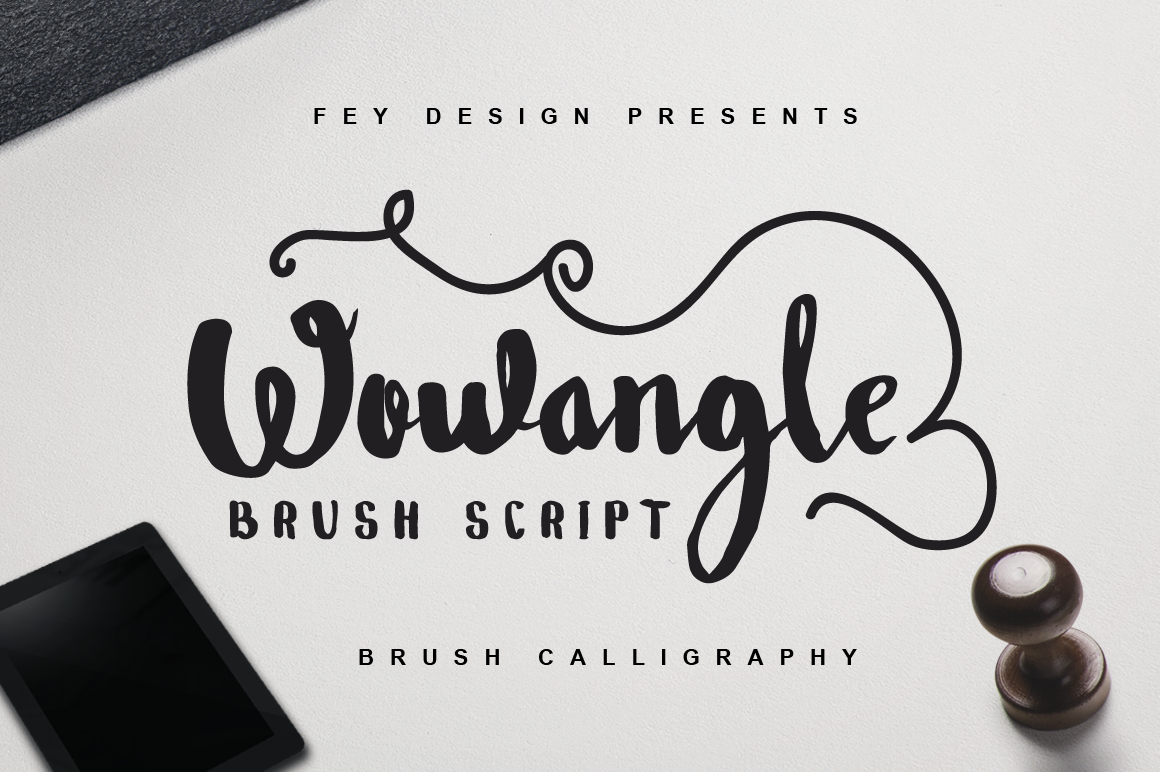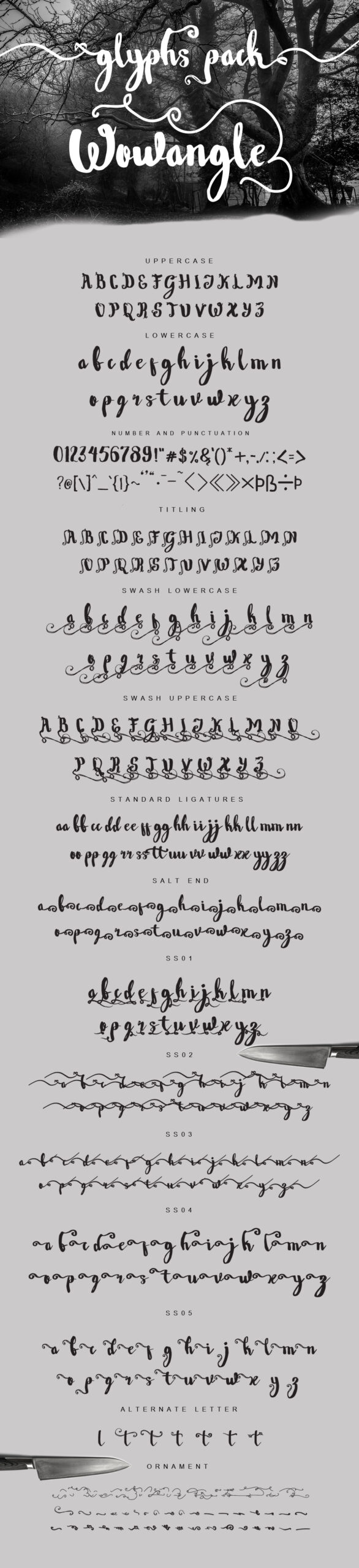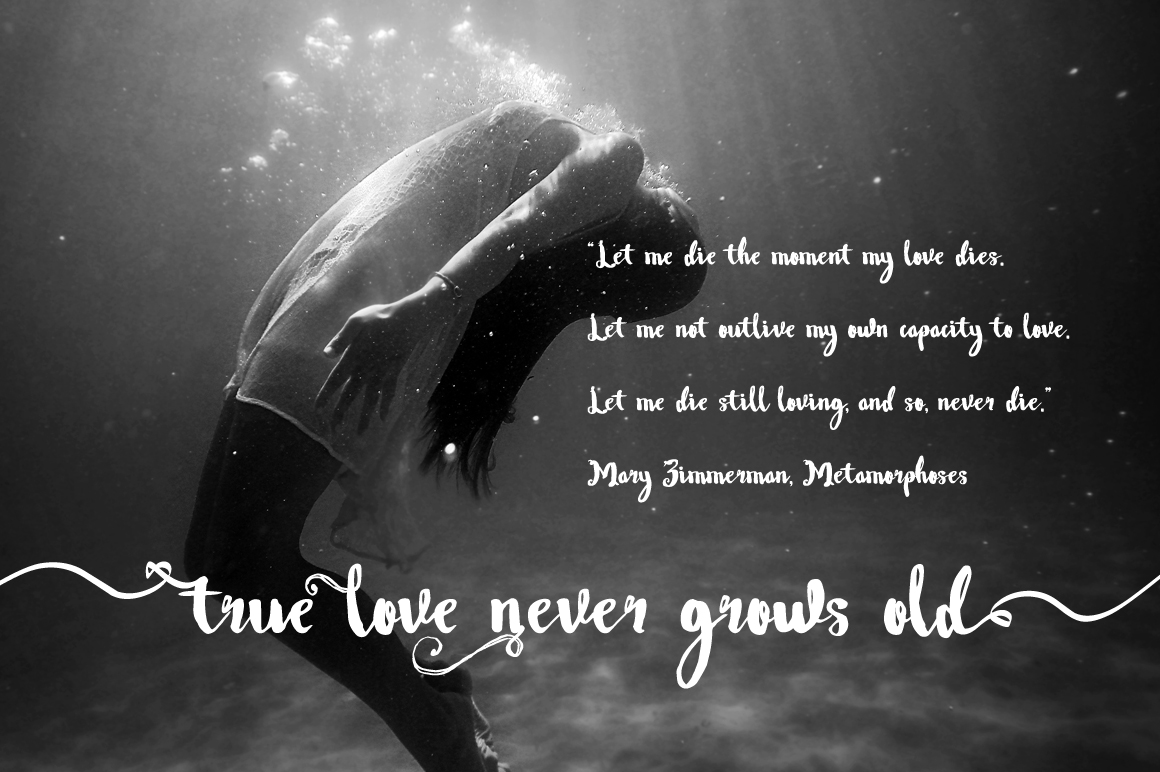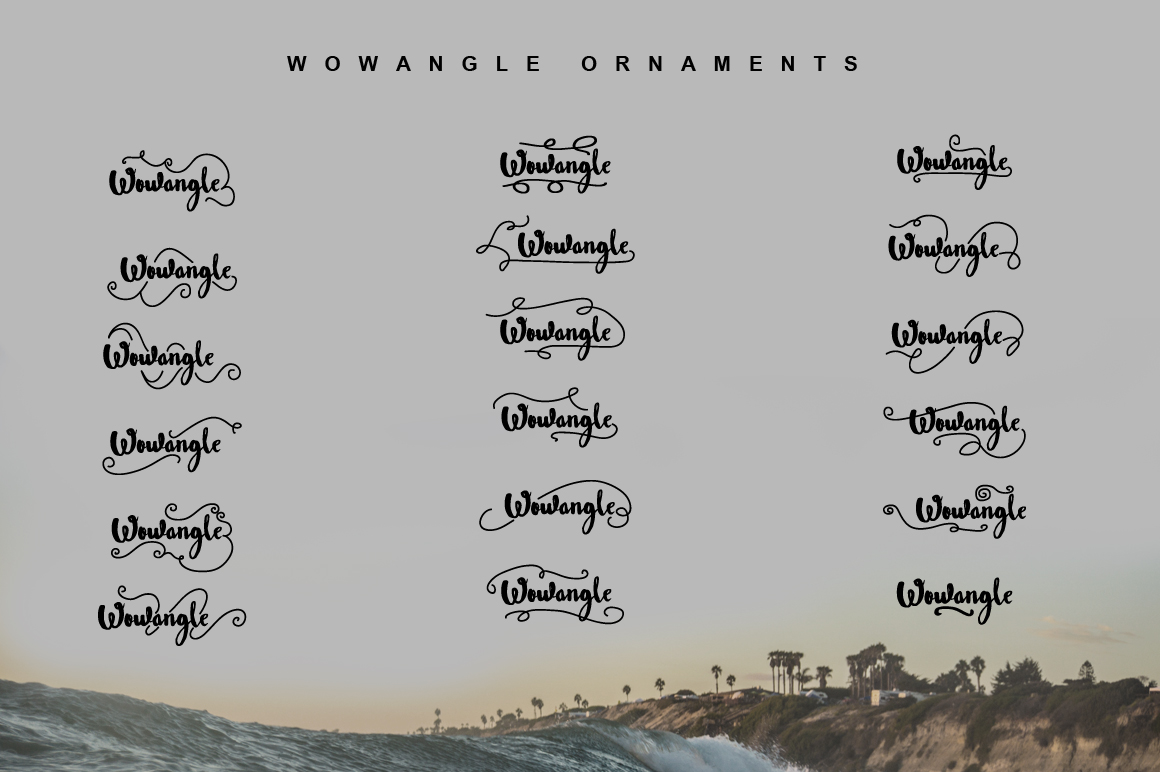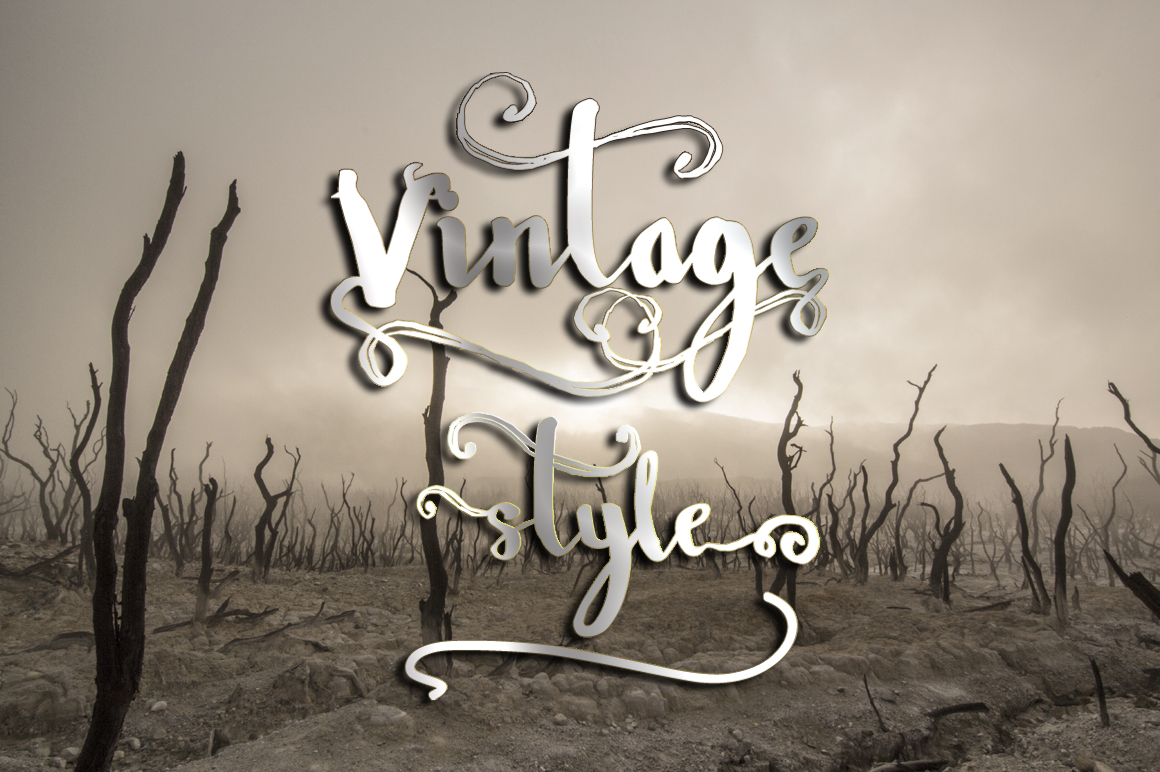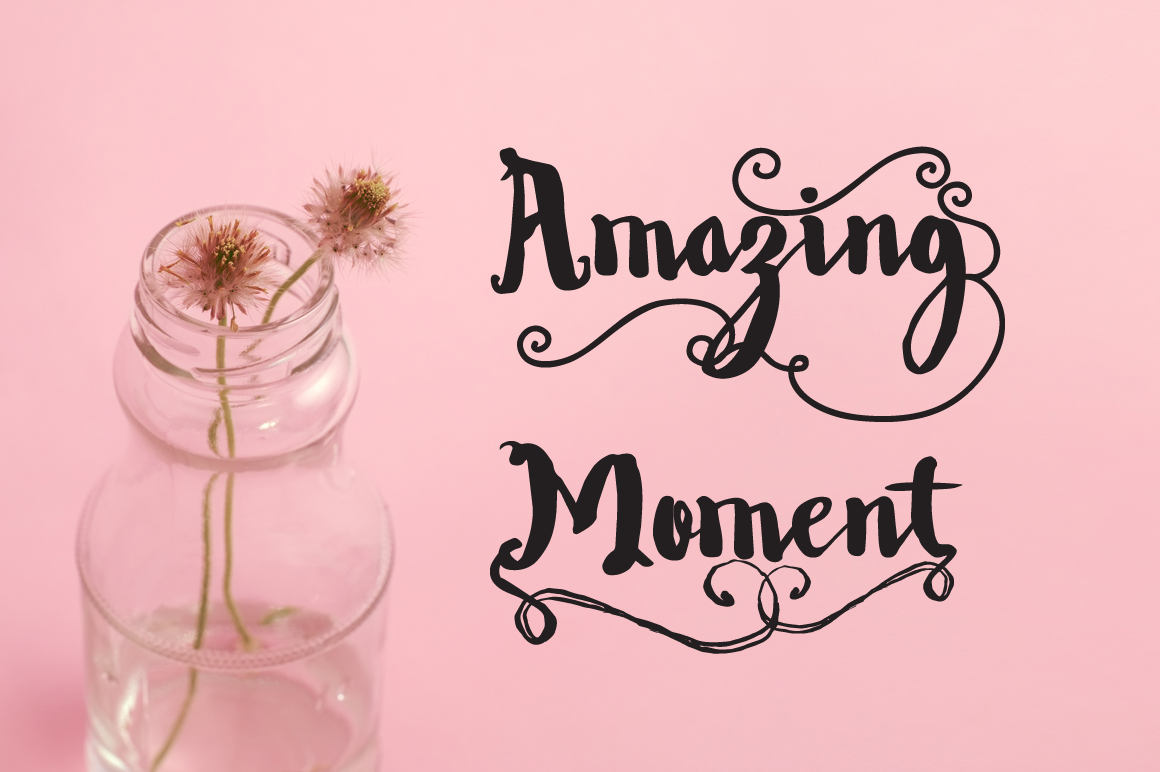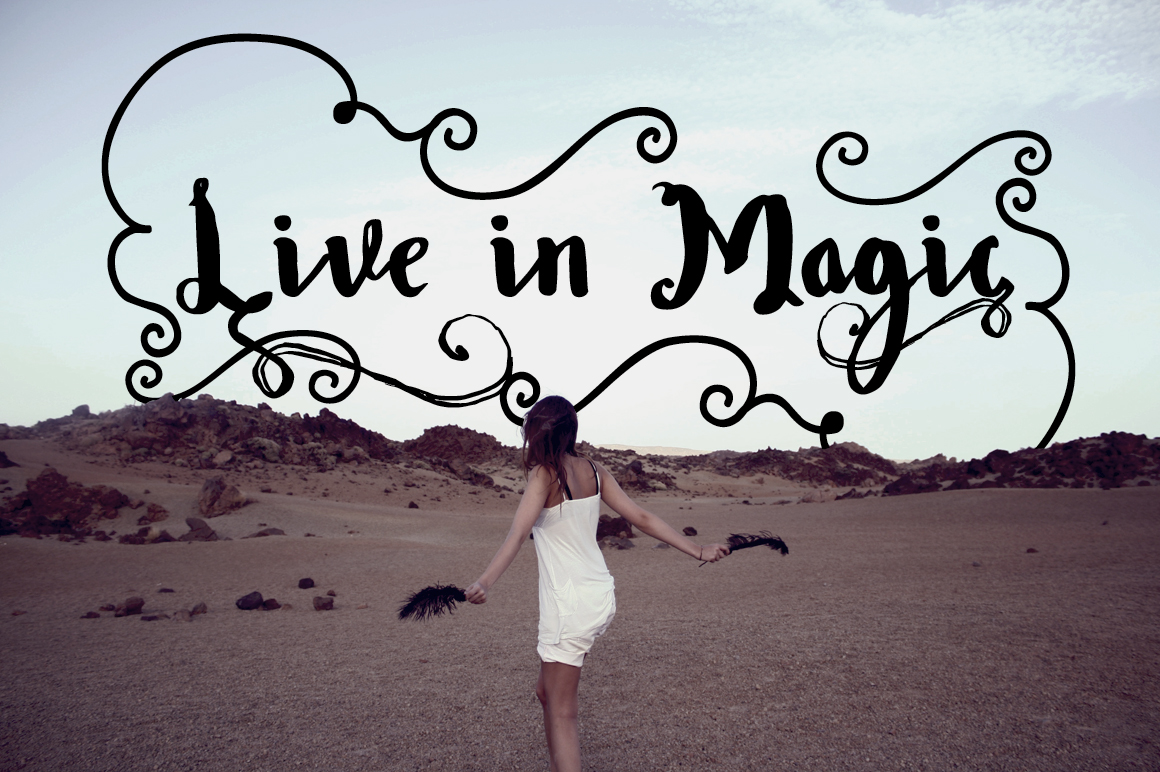
Wowangle Font
About Wowangle Font
Wowangle is a stunning, swashy script font that looks phenomenal in a wide range of projects and designs. This comprehensive font comes with tons of alternates, ligatures, and character options so your designs can look elevated and wholly unique.